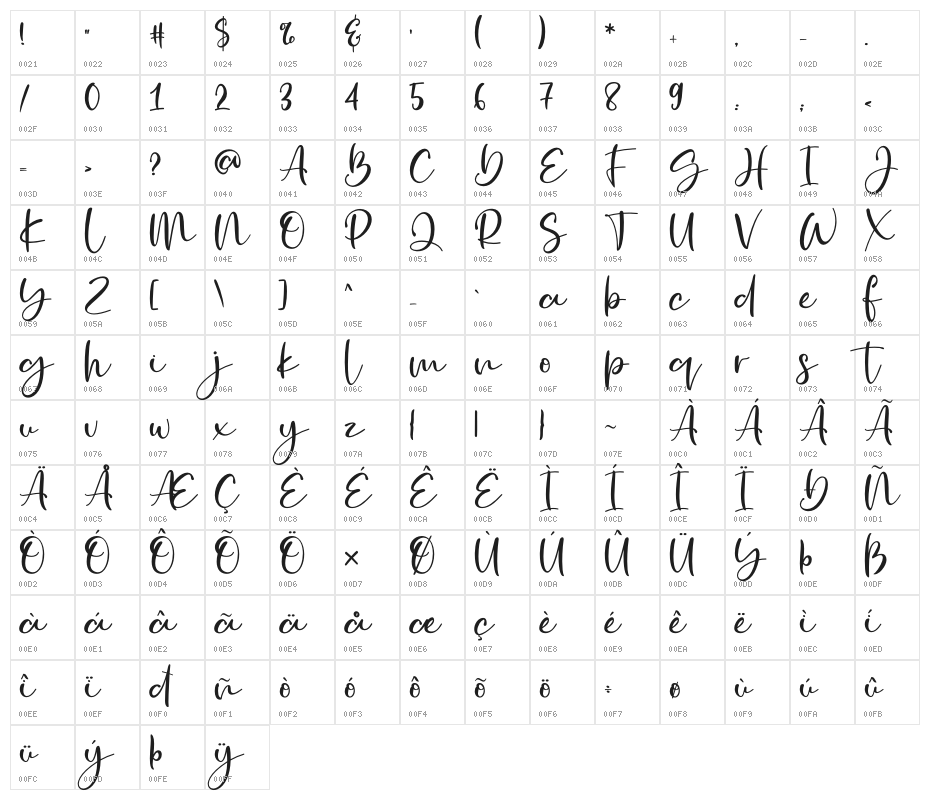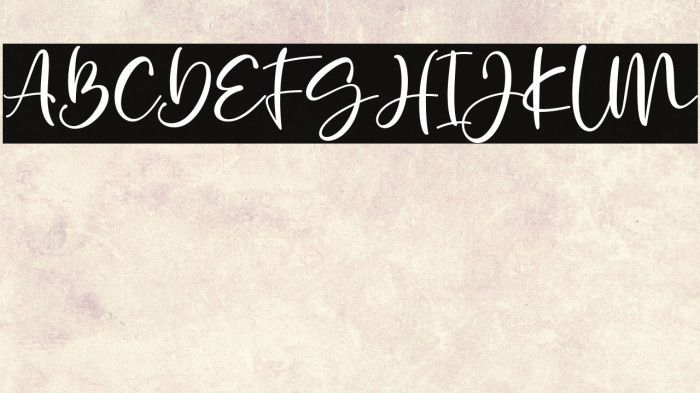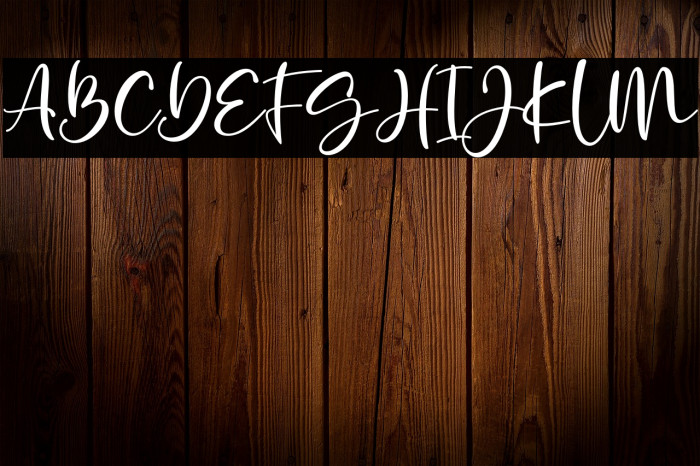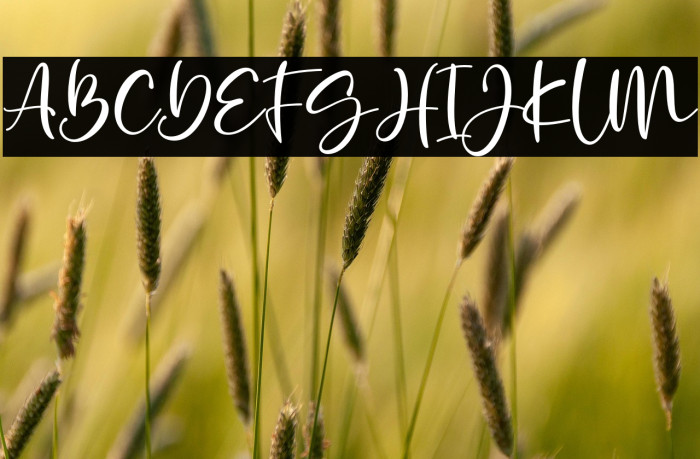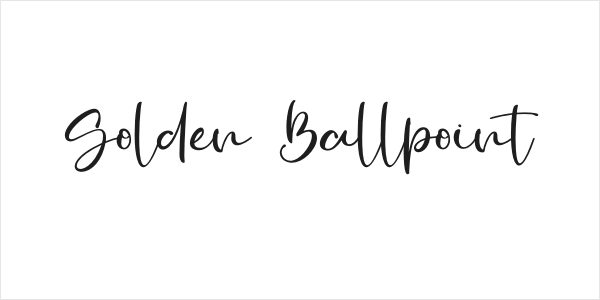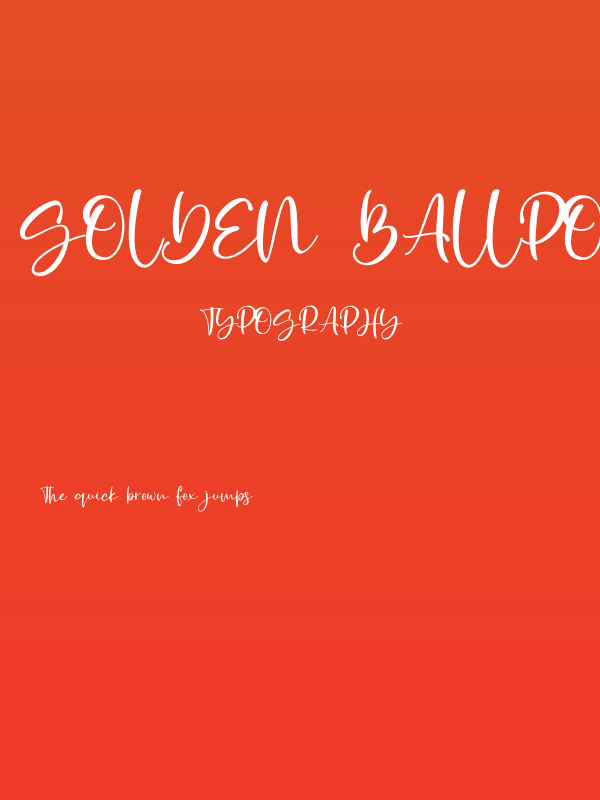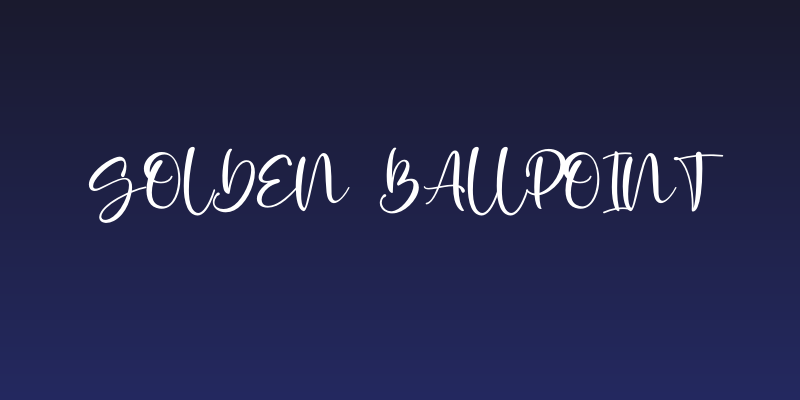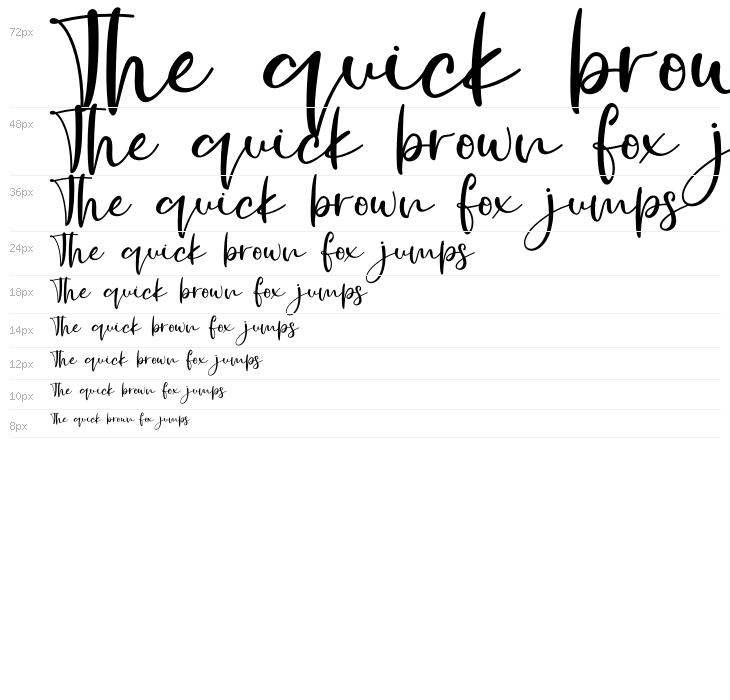
Golden Ballpoint Font
Golden Ballpoint Description
This font exudes a lively and expressive character with its handwritten style, featuring fluid and dynamic strokes that mimic the natural flow of handwriting. The uppercase letters are bold and slightly slanted, giving a sense of movement and energy. The lowercase letters maintain a consistent style, with loops and curves that add a playful touch. Numbers and special characters are designed to match the overall aesthetic, ensuring a cohesive look. The font's informal and friendly appearance makes it ideal for projects that require a personal touch, such as invitations, greeting cards, and creative branding.